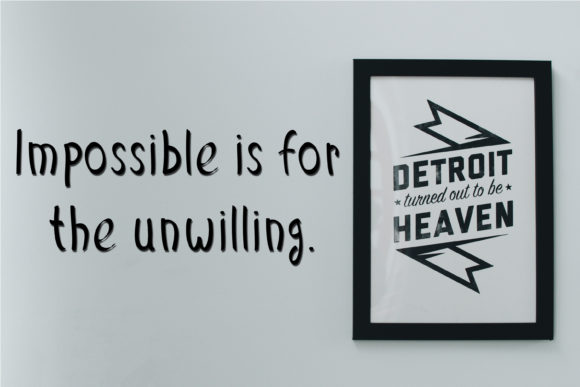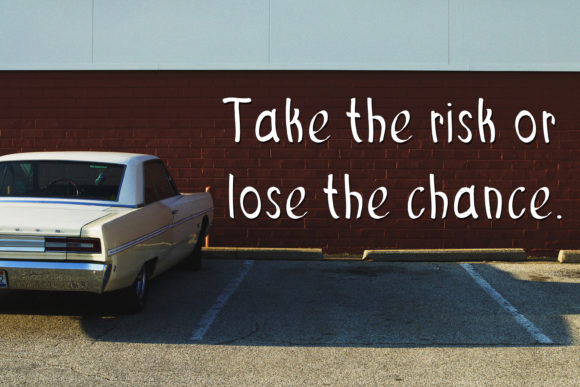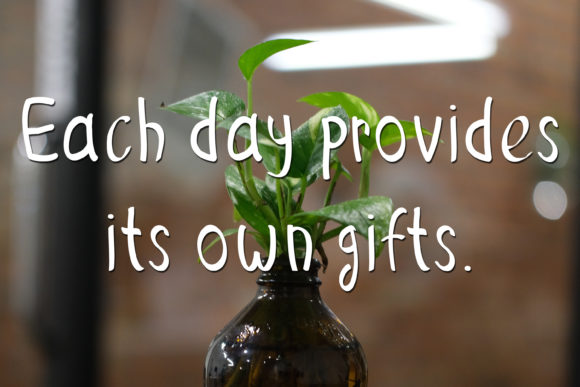
Lost Key Font: Free Download Now
Lost Key is an adaptable and friendly handwritten font.
Lost Key Font offers exceptional quality and versatility, making it a valuable addition to your design toolkit. Whether you’re creating for personal projects or commercial use, Lost Key Font delivers professional results.